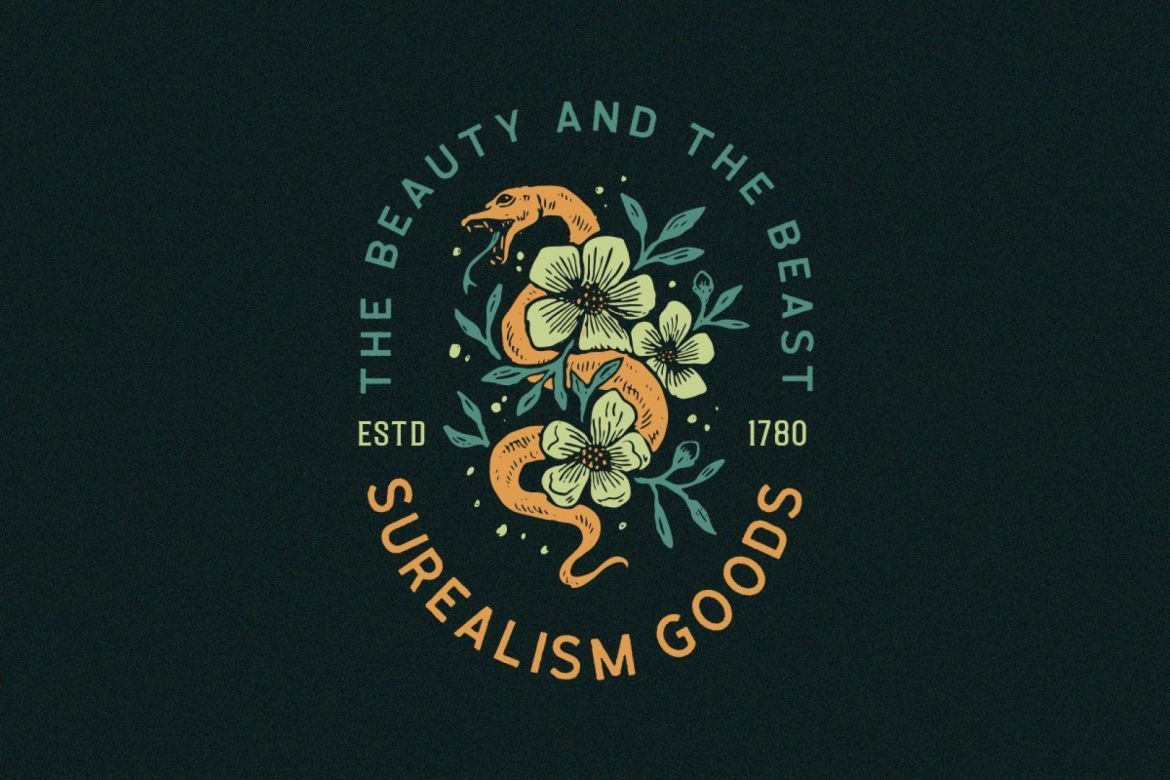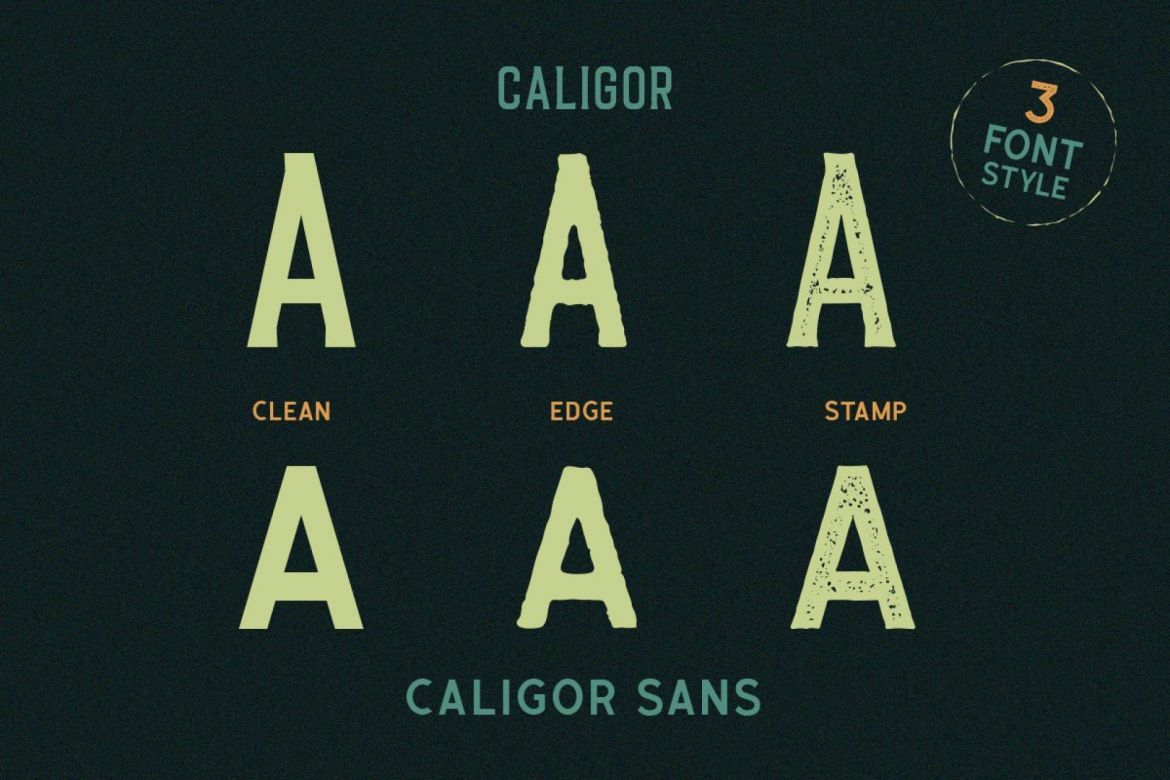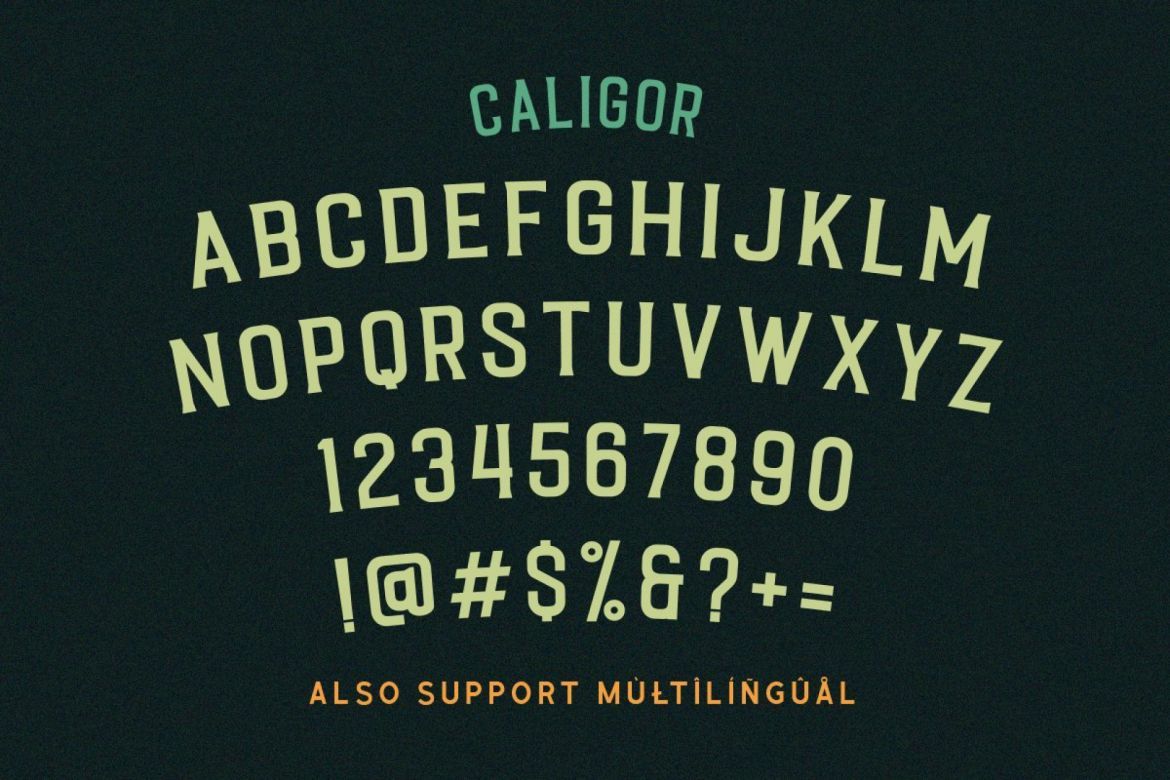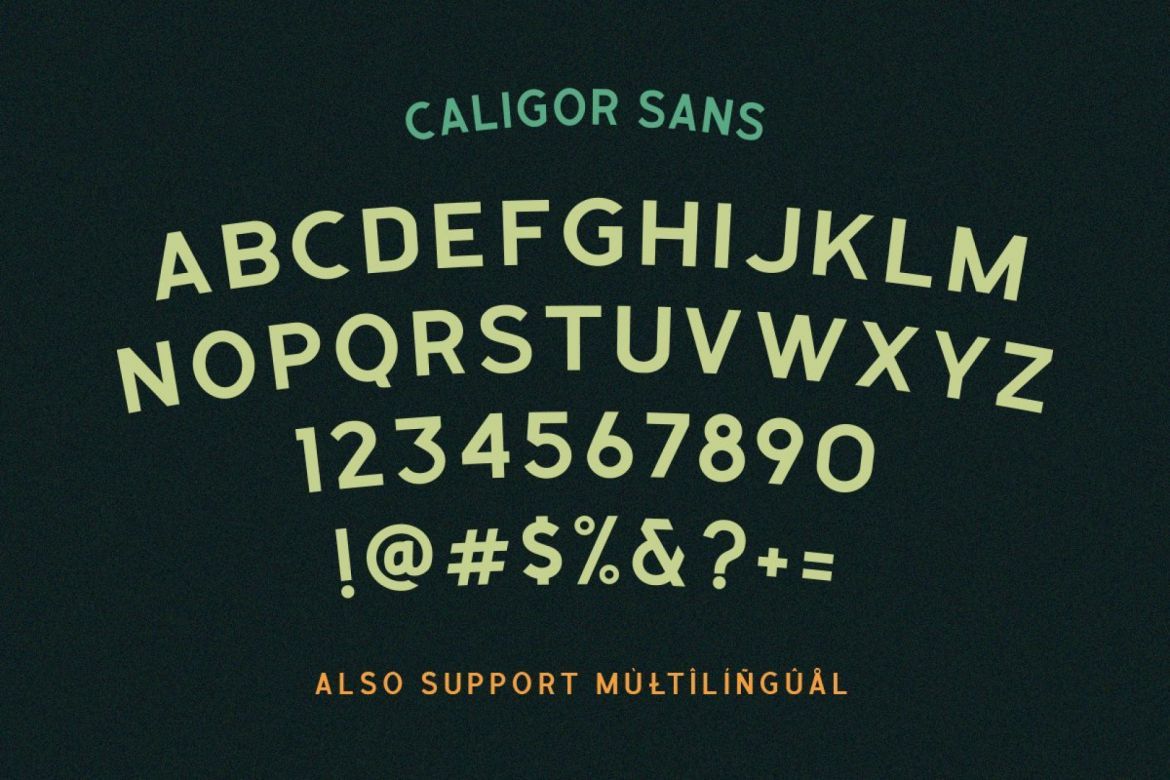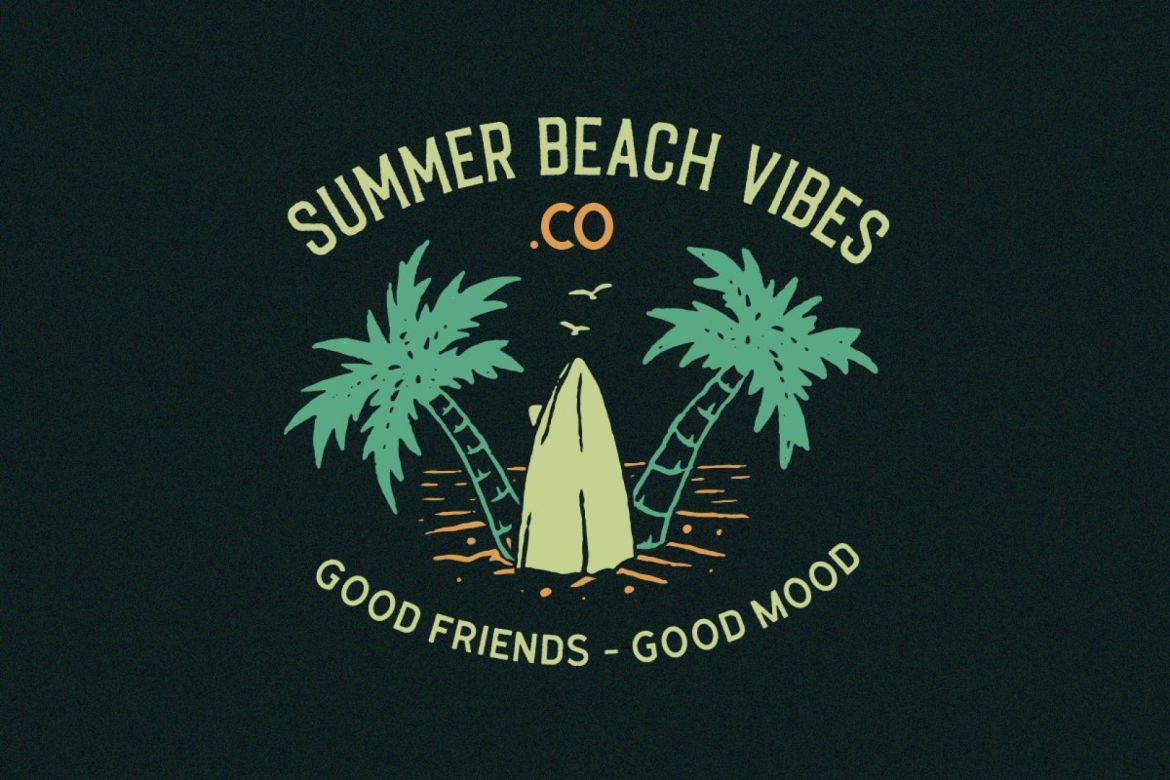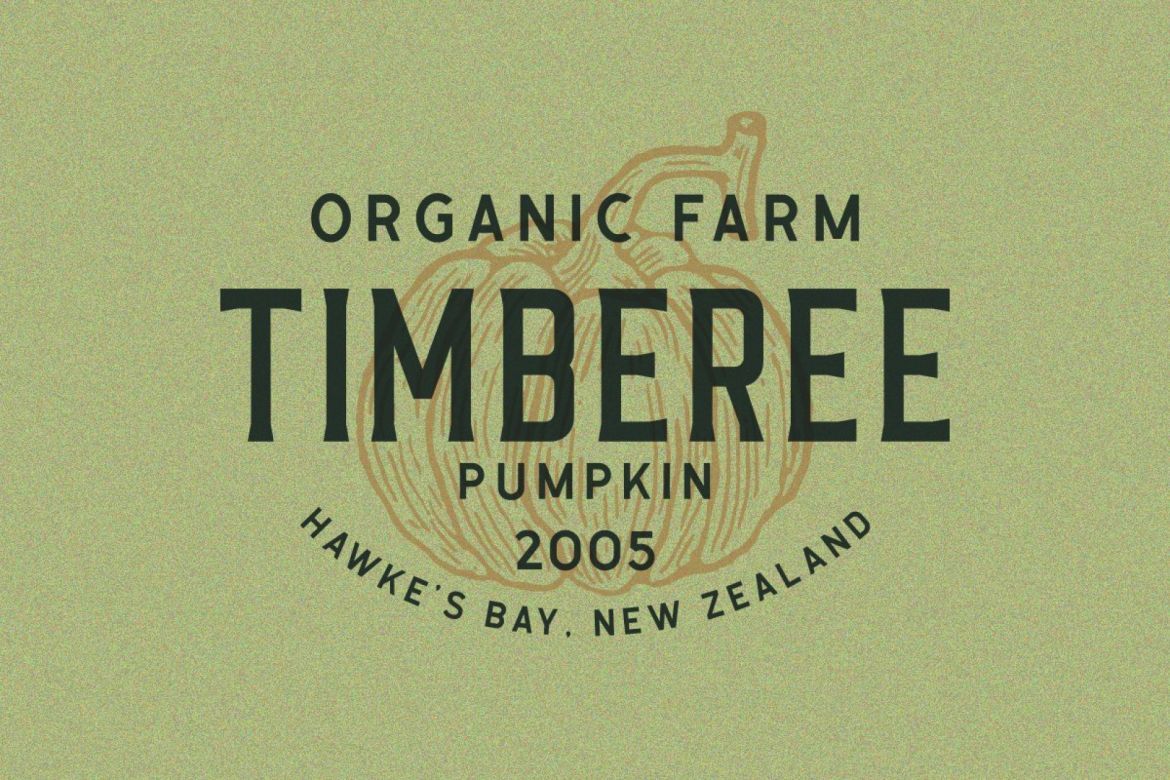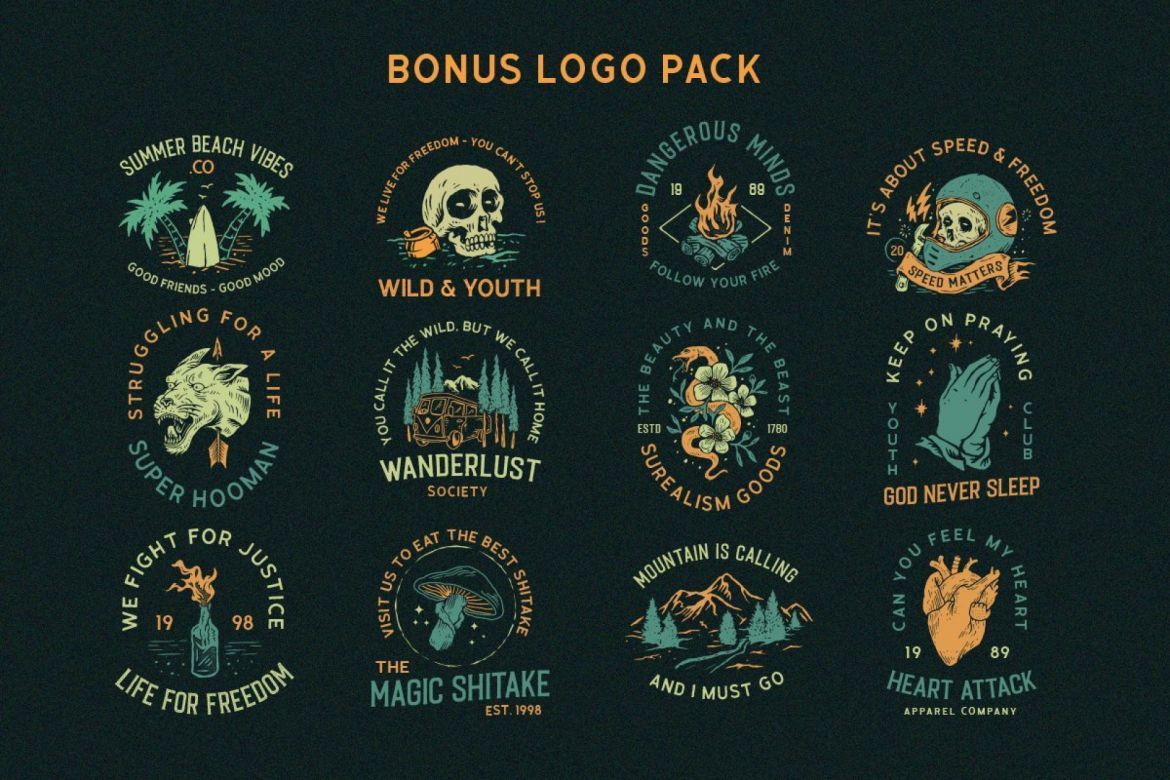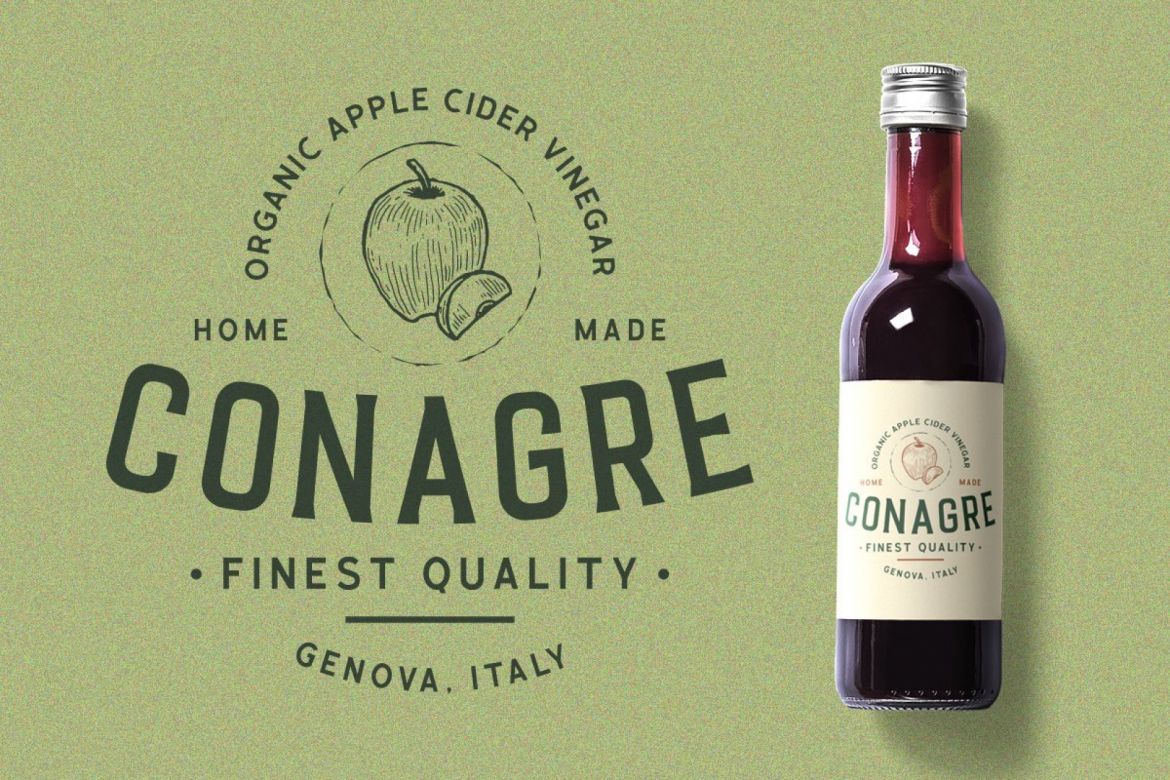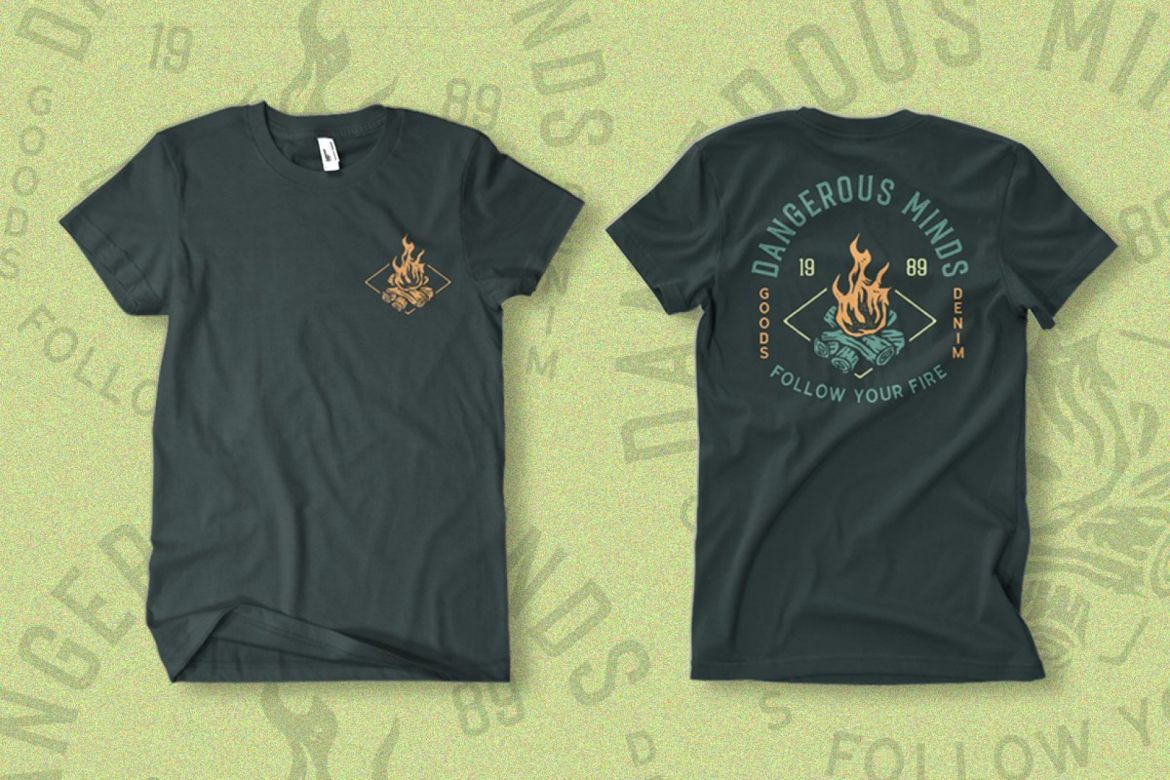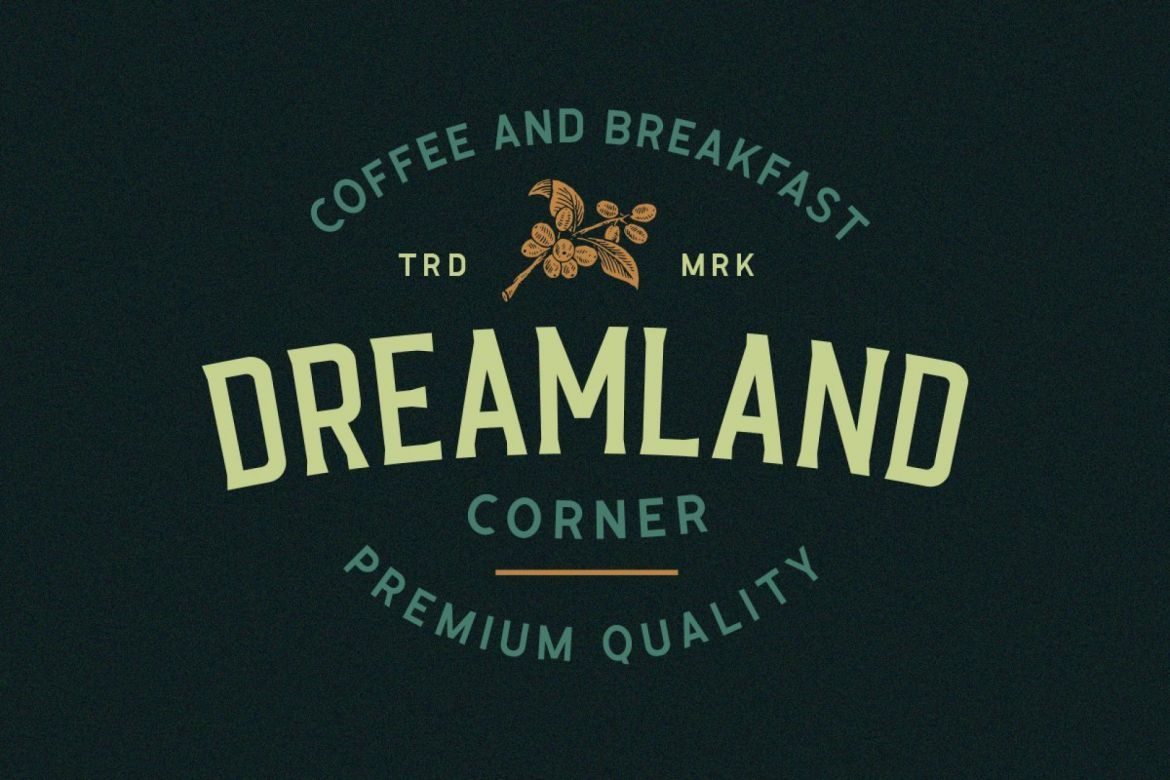
CALIGOR - Display Typeface
• lso supports multilingual and pua-encoded.
• suitable for those of you who need fonts for titles, logos, clothing, invitations, branding, packaging, advertising, etc.